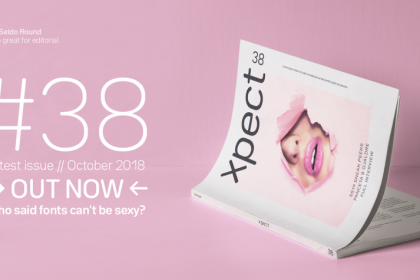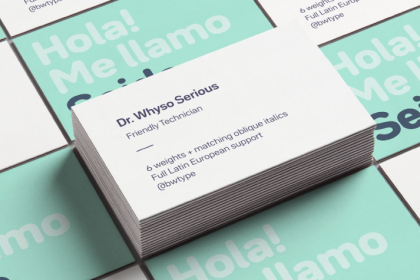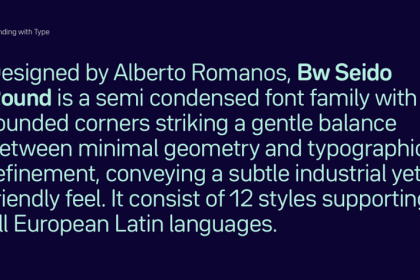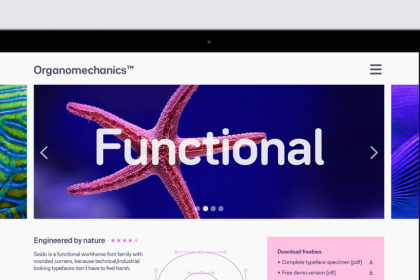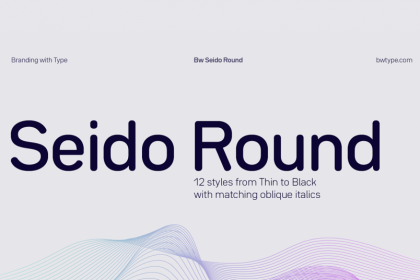
Seido Round Font Family
This is a family of fonts with 12 professional fonts. Add it to your fonts collection as it is suitable for many of your work. You have seen many of the author’s fonts that we’ve shared: Bw Vivant, Bw Helder, Bw Gradual, Bw Glenn Sans, Bw Darius. And today I introduce to you Seido Round Typeface. Designed by Alberto Romanos, Bw Seido Round is a semi condensed typeface with rounded corners striking a gentle balance between minimal strict geometry and typographic refinement, conveying a subtle industrial yet friendly feel. It consist of 12 styles (6 uprights + 6 matching obliques) supporting all European Latin languages.
Beyond the very obvious rounded corners and terminals, which are instantly softening the feel and positioning it on the friendly side, Bw Seido Round presents a series of subtle typographic adjustments elevating the design while staying invisible: The monoline look is achieved seamlessly thanks to the subtle modulation and the corrections at the joins; the tall x-height married with the open counters and the unambiguous shapes make it a very legible font,… All these ingredients play a balancing game with the crude geometry by adding the right doses of warmth into the industrial feel.